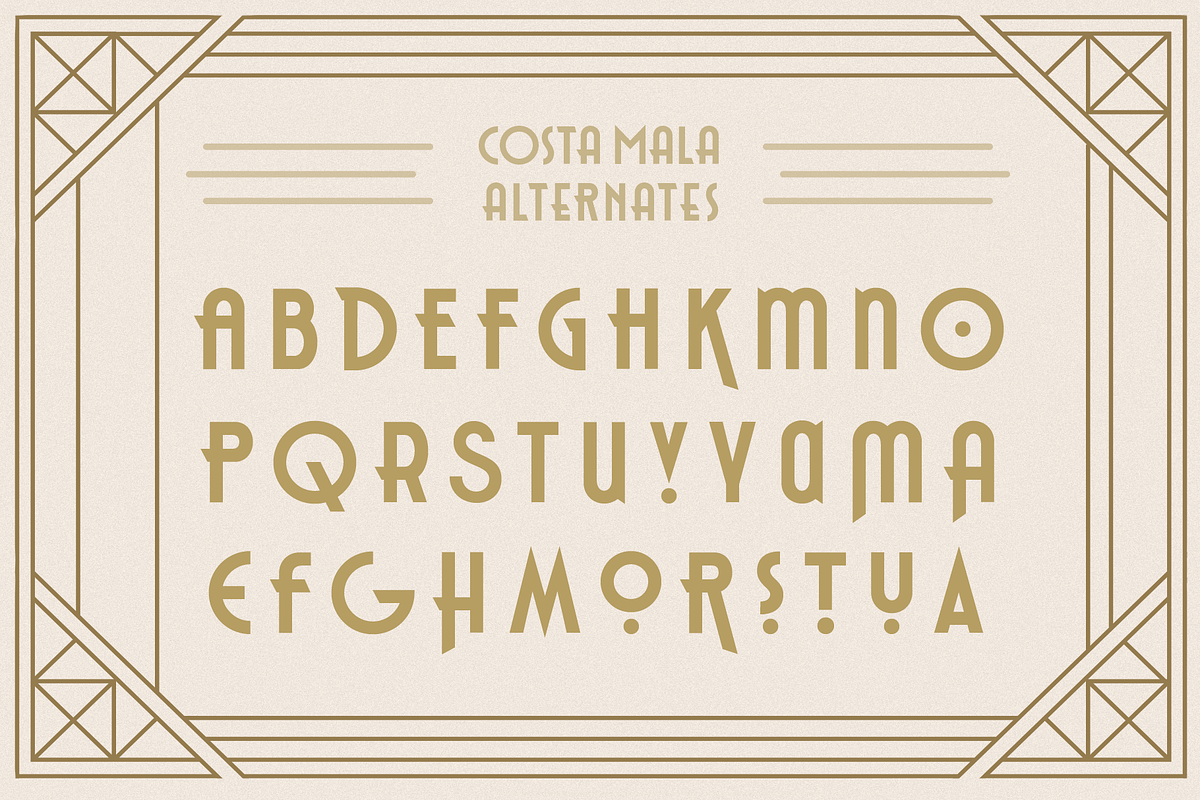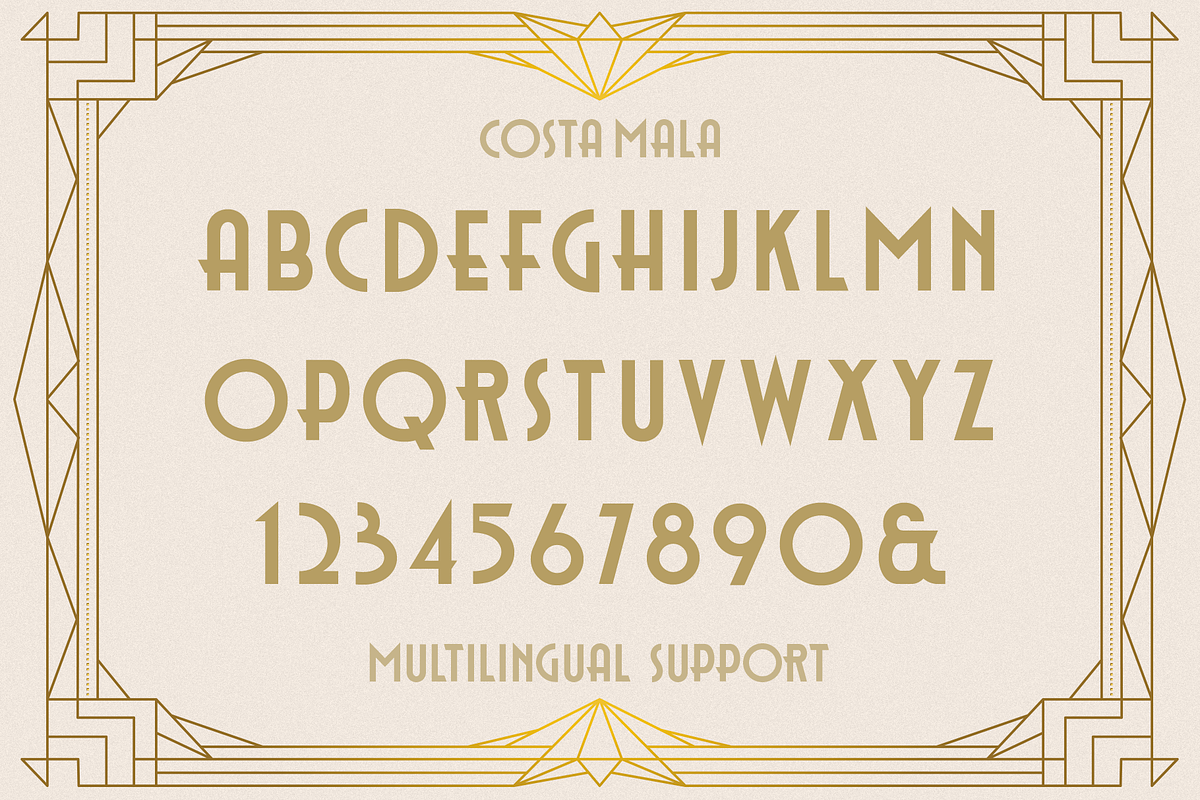
Costa Mala
Costa Mala this is a wonderful vintage font designed in the Art Deco style. with it, you will be transported to the era of the 20s-30s. it will add charm and create a unique atmosphere of this time in your design project. this font includes two styles : regular and outline, as well as it has alternates that you can use to play with the dynamics of the font. This font is easy to use and has OpenType features.
Following international symbols support: ÀÁÂÃÄÅĄÇĆÈÉÊËĘÌÍÎÏÐÑŃŁÒÓÔÕÖØÙÚÛÜŚŠŸÝŹŻŽßàáâãäåçèéêëìíîïðñòóôõöøùúûüýÿąćęłńśšźżž